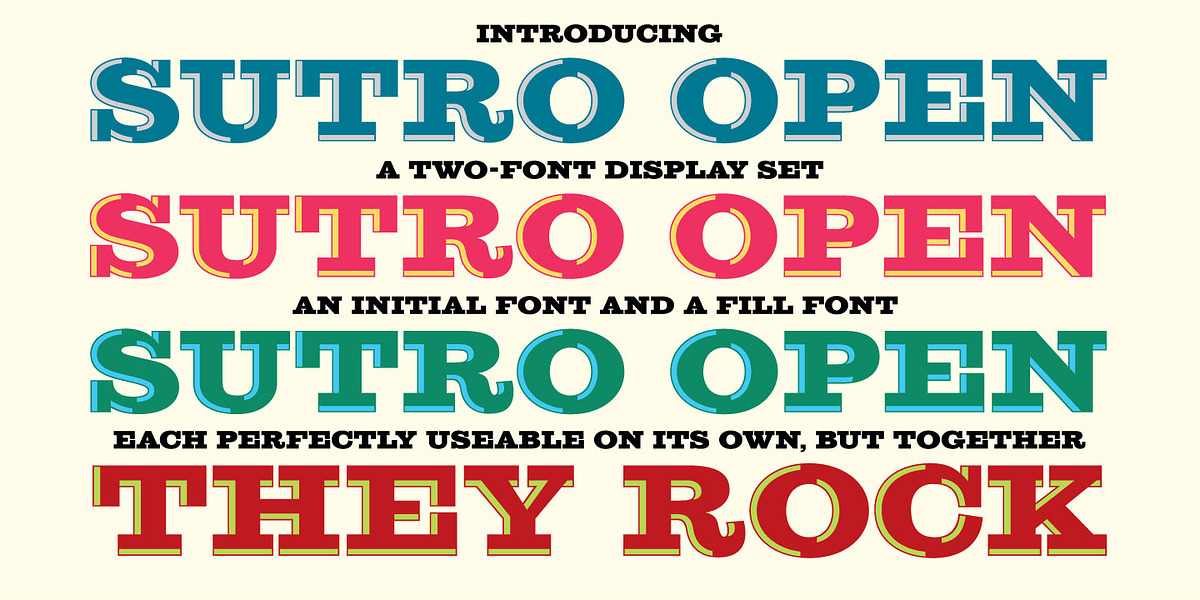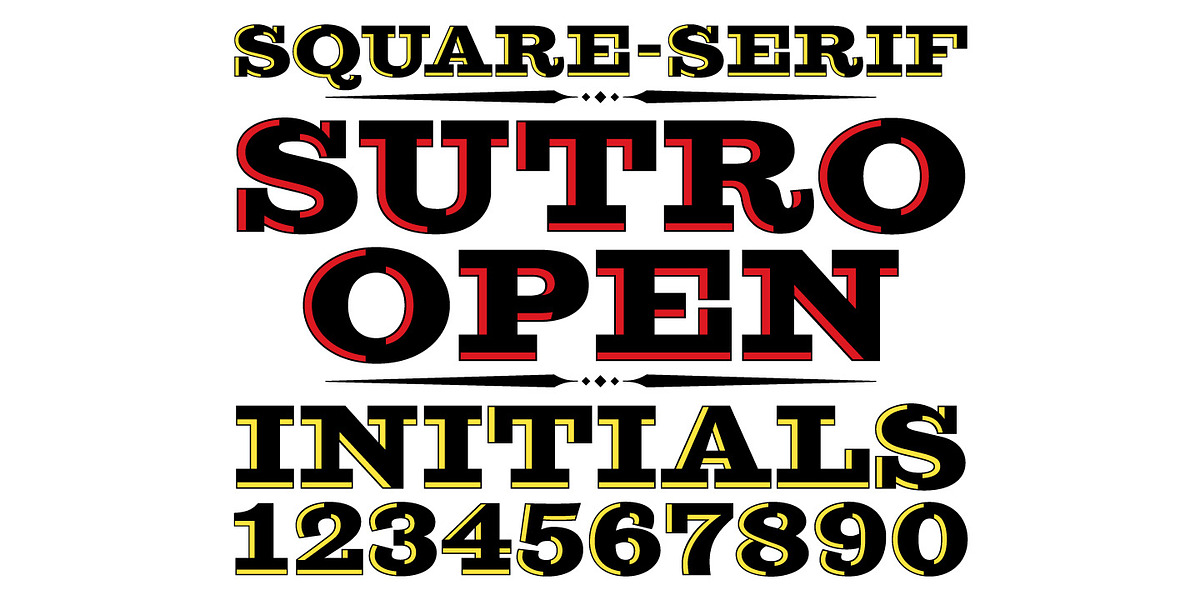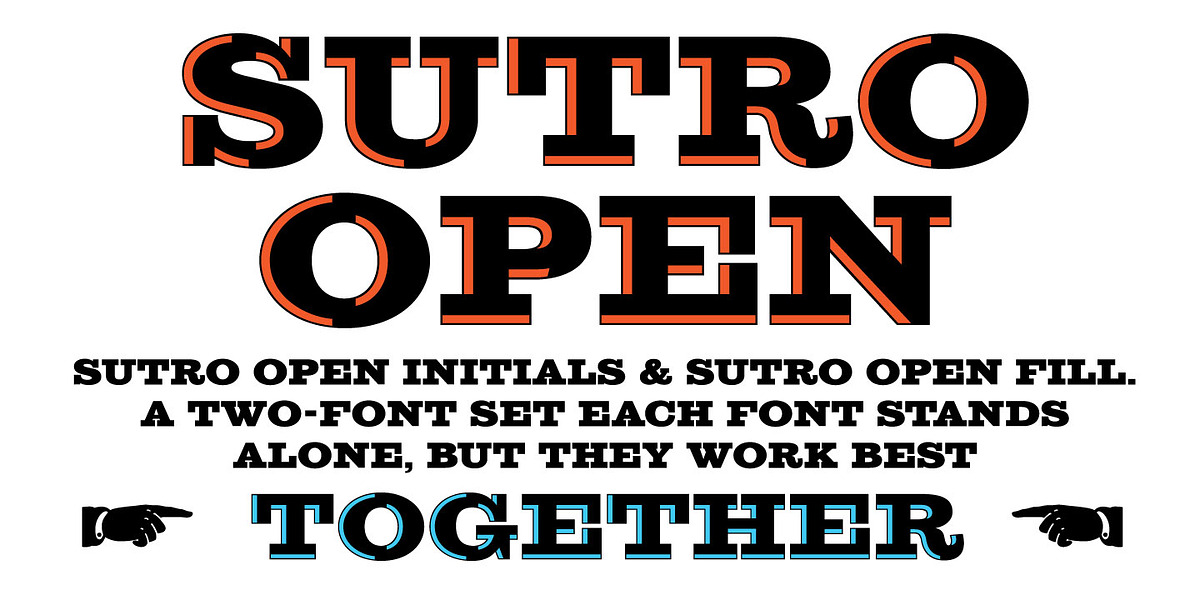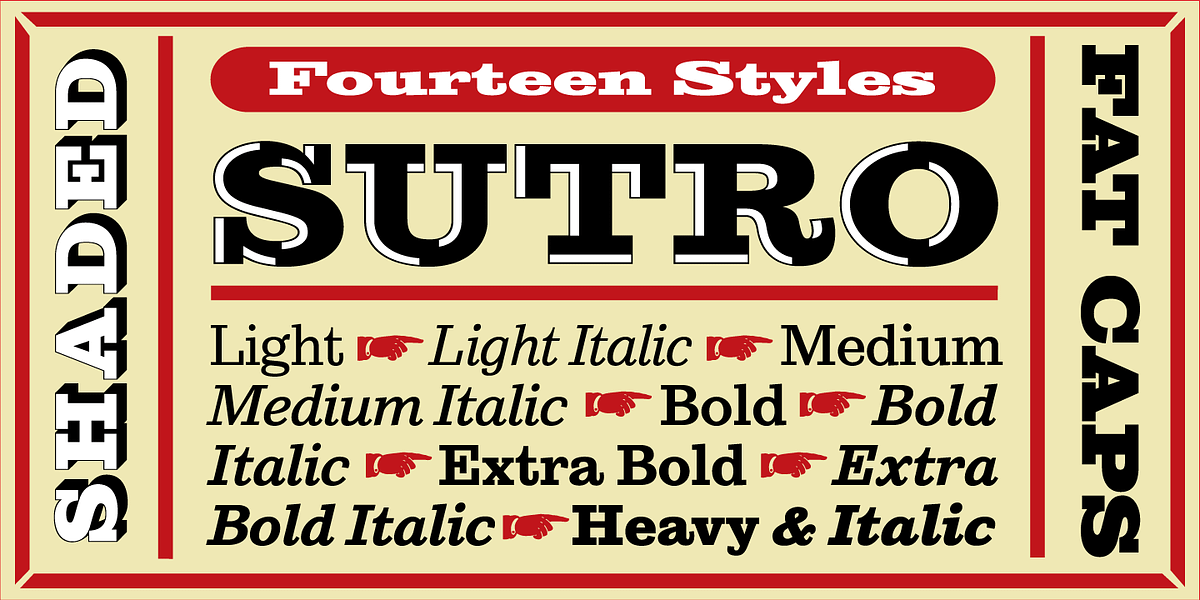
Sutro
The Sutro font family is a display slab serif inspired by wood type and historical designs like the Nebiolo Egiziano. It features a grotesque style with bold, geometric forms. Notably, the Sutro Open Initials and Sutro Open Fill fonts are designed to be layered, creating an embossed effect.